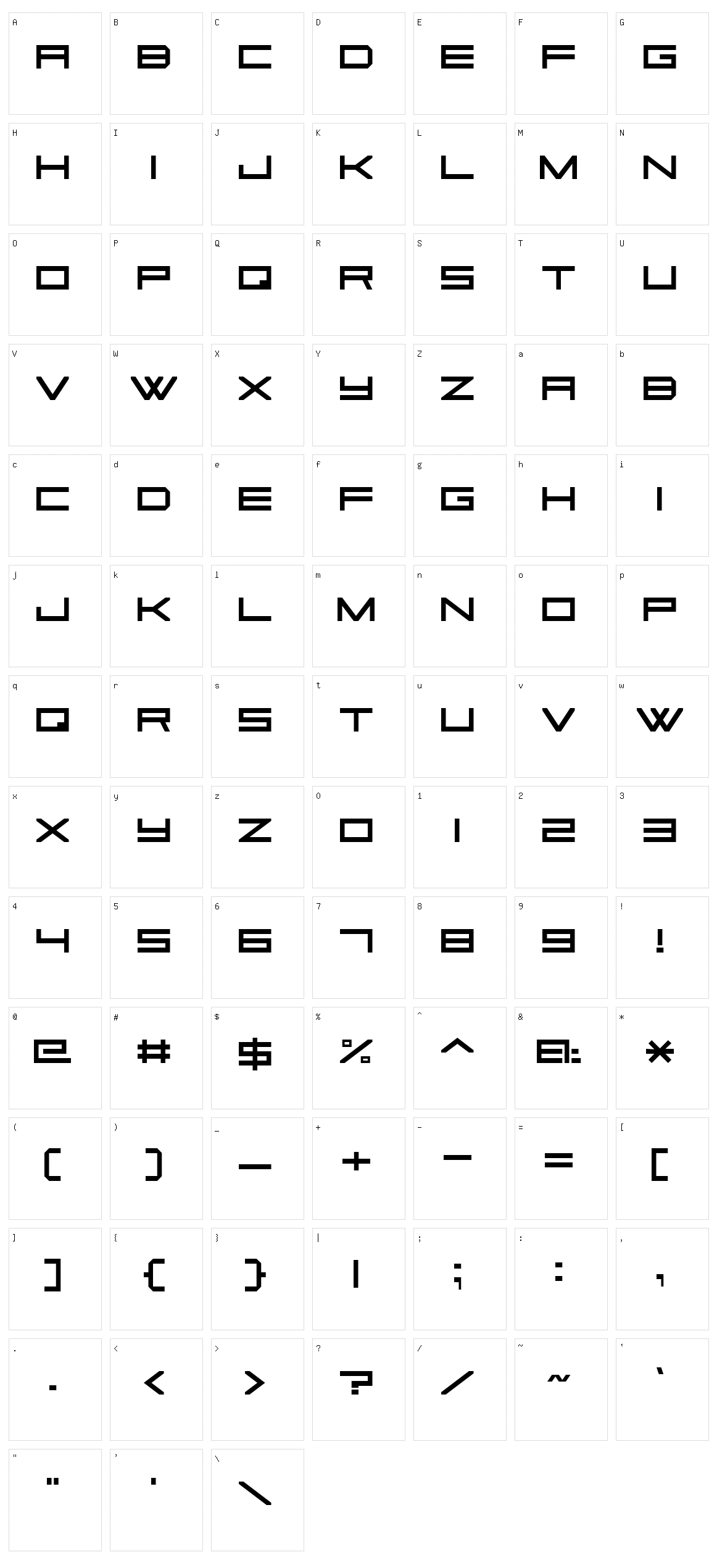
Very simple square sans serif font. Latin 1 (1252) and cyrillic (1251) code pages are supported.
It was developed for application Square Clock Android-7: